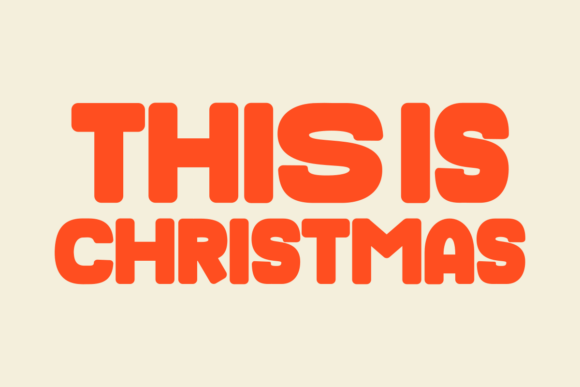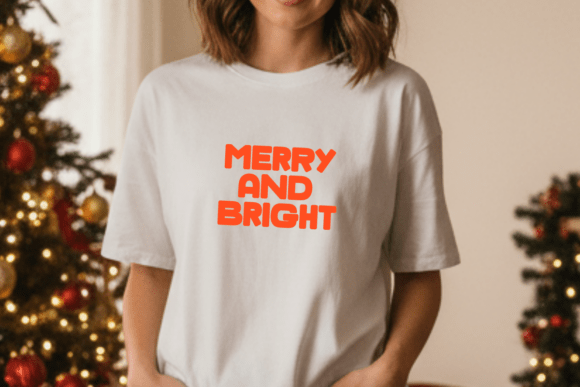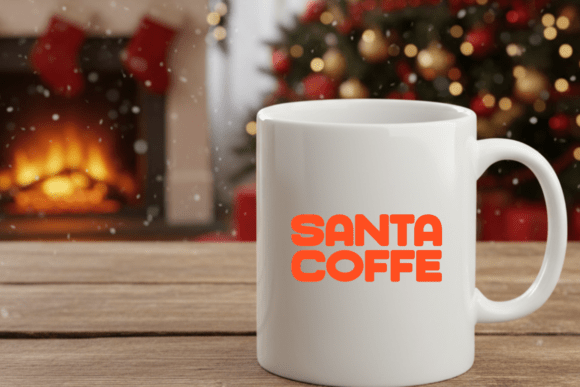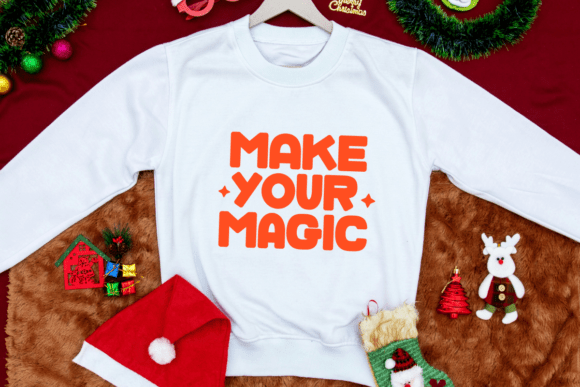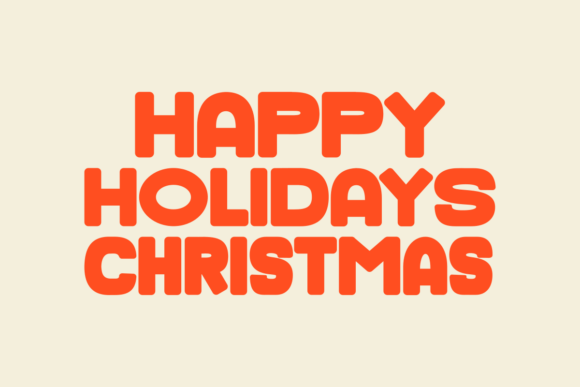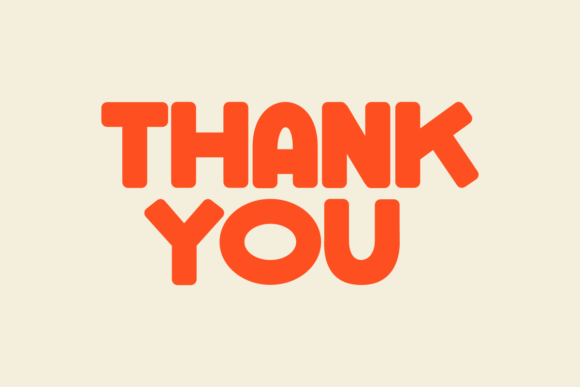
Introduction to Merry Thick Font
Have you ever stared at a blank page, desperately searching for the perfect font to bring your creative vision to life? That moment of frustration is a familiar one for many designers. But what if you could discover a font that not only captures your imagination but also leaves a lasting impression on your audience?
Enter Merry Thick Font, a bold and handcrafted typeface that’s sure to elevate your designs and make them stand out from the crowd. With its robust and dynamic character, Merry Thick Font is the perfect design resource for anyone looking to add a touch of personality to their projects.
Whether you’re working on a high-quality design project or simply looking for a free download to spice up your creative endeavors, Merry Thick Font is a valuable addition to any designer’s toolkit. Its transparent background and versatile style make it an ideal choice for a wide range of applications, from eye-catching posters to fashionable tote bags.
Merry Thick Font
- High-quality, bold font perfect for creative projects and designs, available for free download.
- Transparent background, making it easy to overlay on various design elements and backgrounds.
- Designed to be versatile and suitable for a wide range of creative projects, from logos to typography-based art.
Honest Review: Merry Thick Font
I recently stumbled upon the Merry Thick Font, a design resource that’s been making waves in the creative community. After putting it to the test, I’m excited to share my honest thoughts.
- High-quality design**: The Merry Thick Font boasts a high-quality design that’s perfect for any creative project.
- Transparent background**: The transparent background feature is a game-changer, allowing for seamless integration with other design elements.
- Limited character set**: The font’s character set is somewhat limited, which may not be ideal for complex projects.
- Not suitable for small text**: The font’s bold design may not be the best choice for small text, as it can become difficult to read.
Overall, the Merry Thick Font is a solid addition to any designer’s toolkit. While it has some limitations, its high-quality design and free download make it a valuable resource for creative projects.
Merry Thick Font is perfect for designing festive invitations, holiday cards, and other seasonal materials. It’s also great for creating eye-catching social media graphics and promotional materials. With its high-quality design and transparent background option, Merry Thick Font is a valuable resource for any creative project.